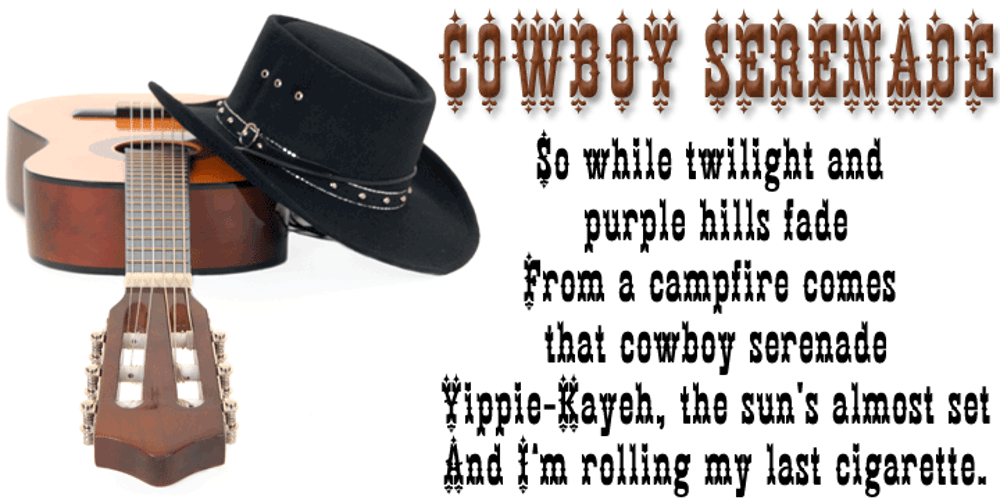
Cowboy Serenade
Cowboy Serenade font
Cowboy Serenade Font Family was designed by Michael Hagemann and published by FontMesa. Cowboy Serenade contains 1 styles and family package options. Cowboy Serenade is an old classic Western font from about the 1870s.